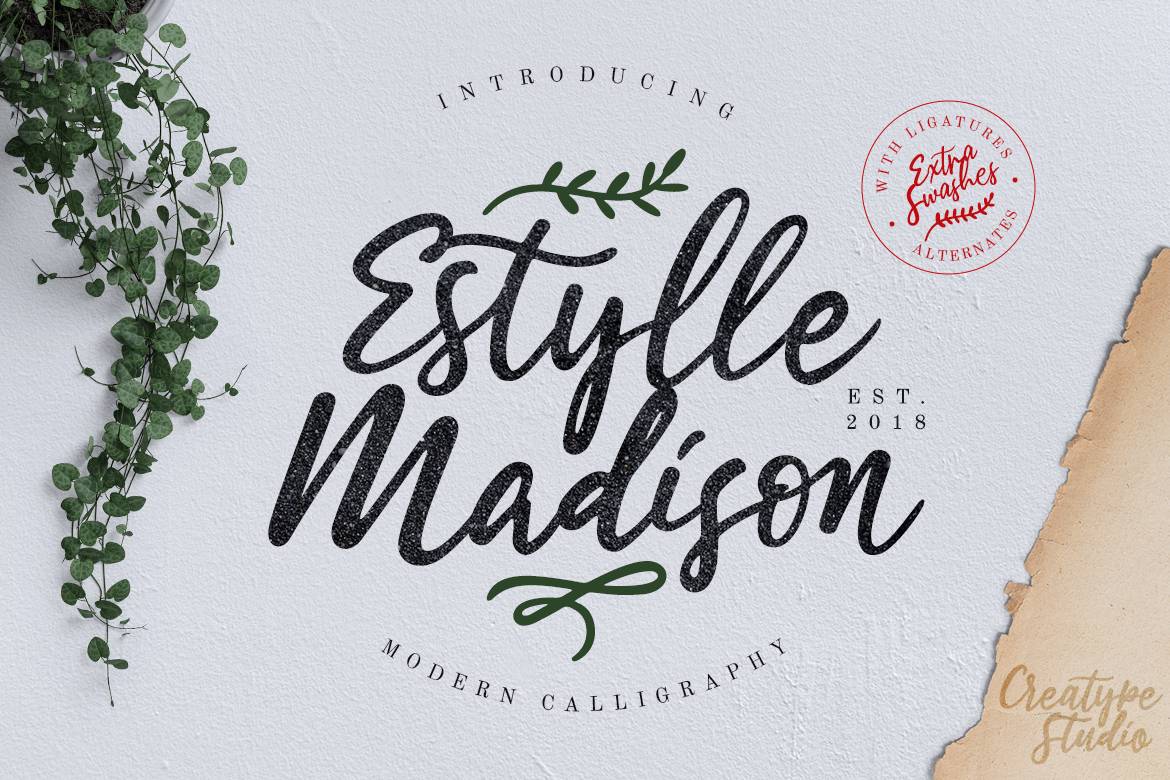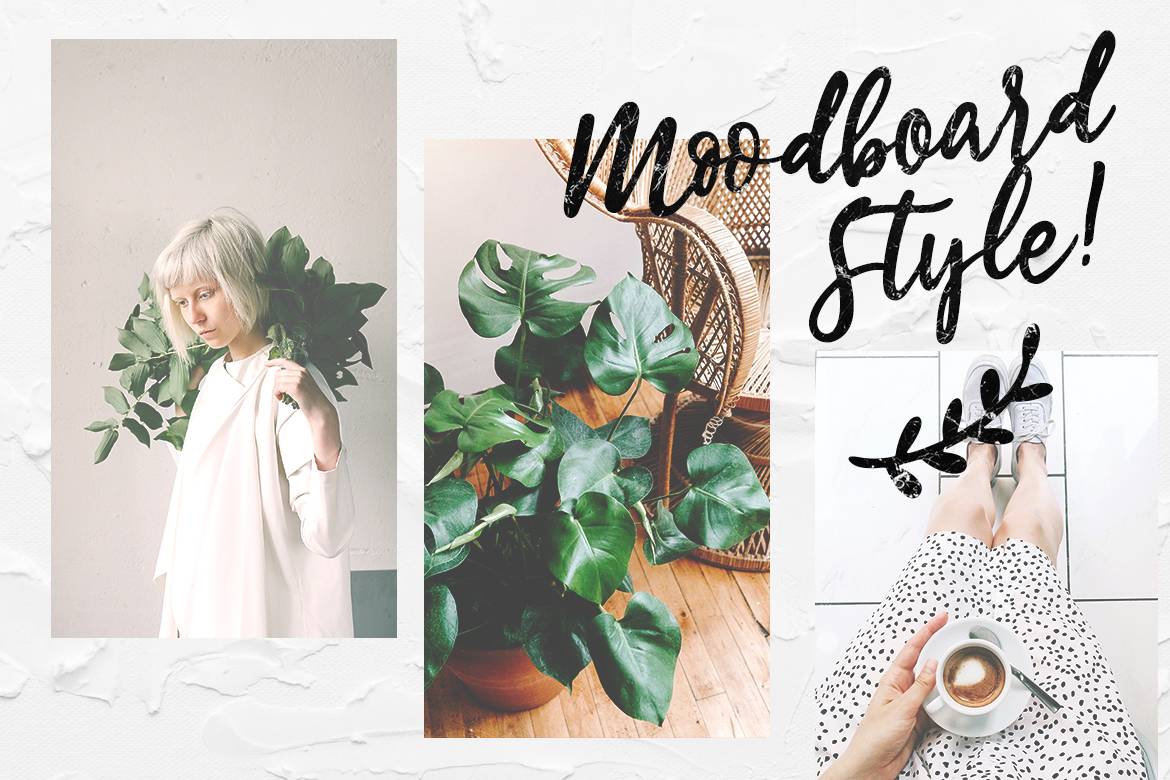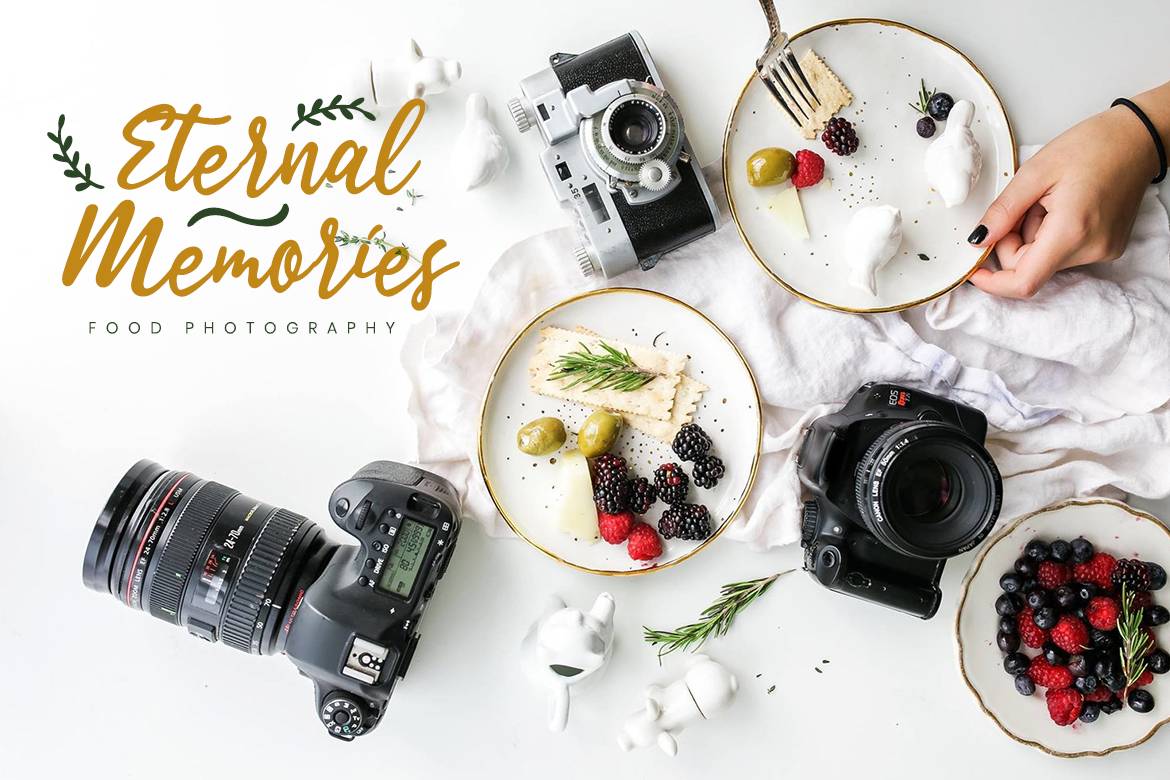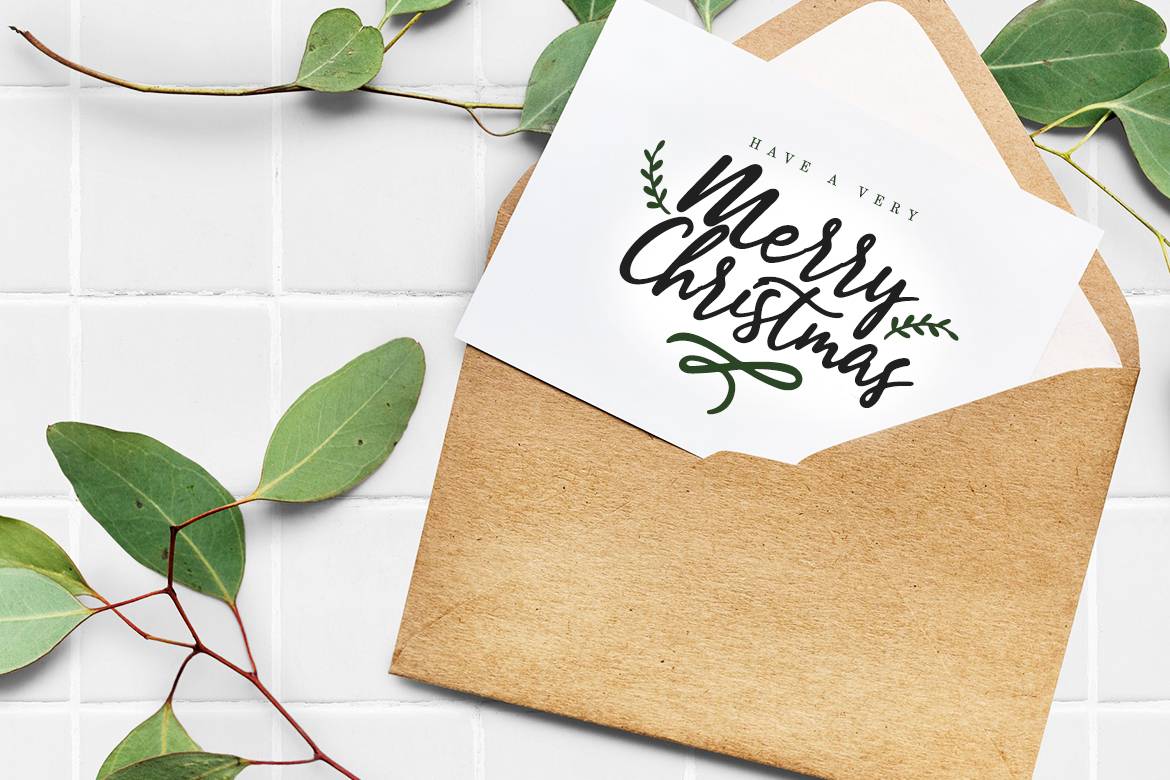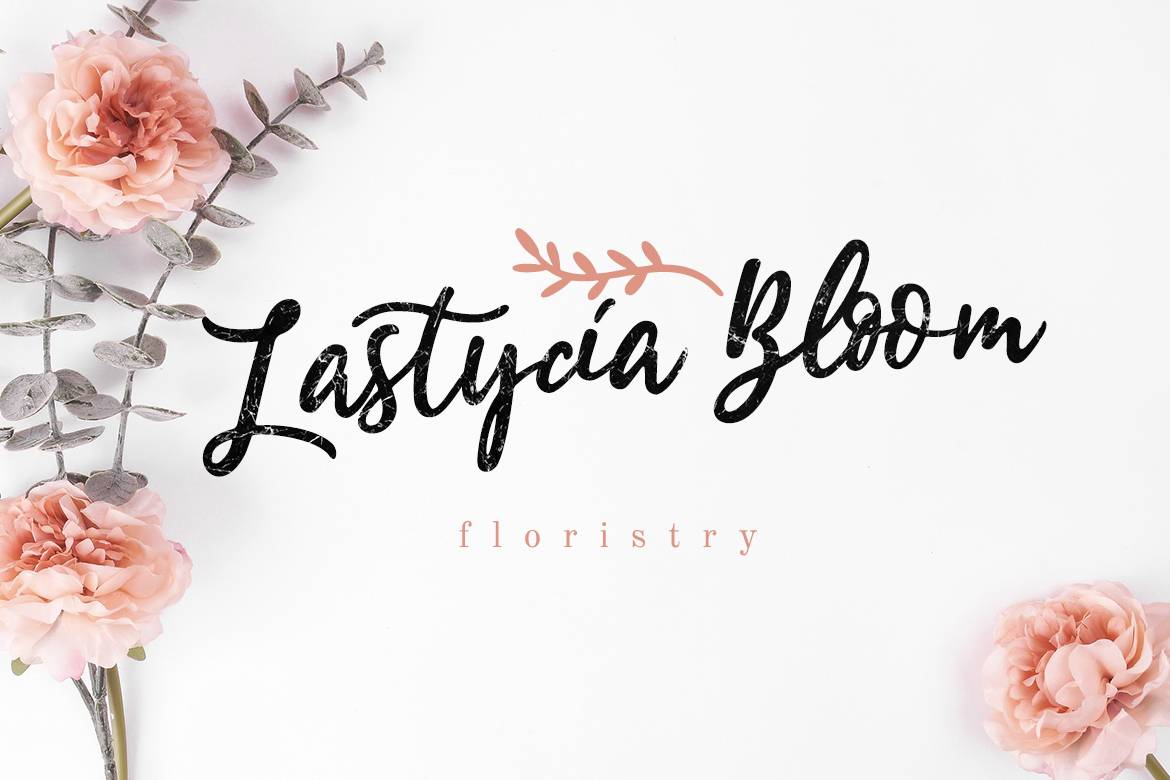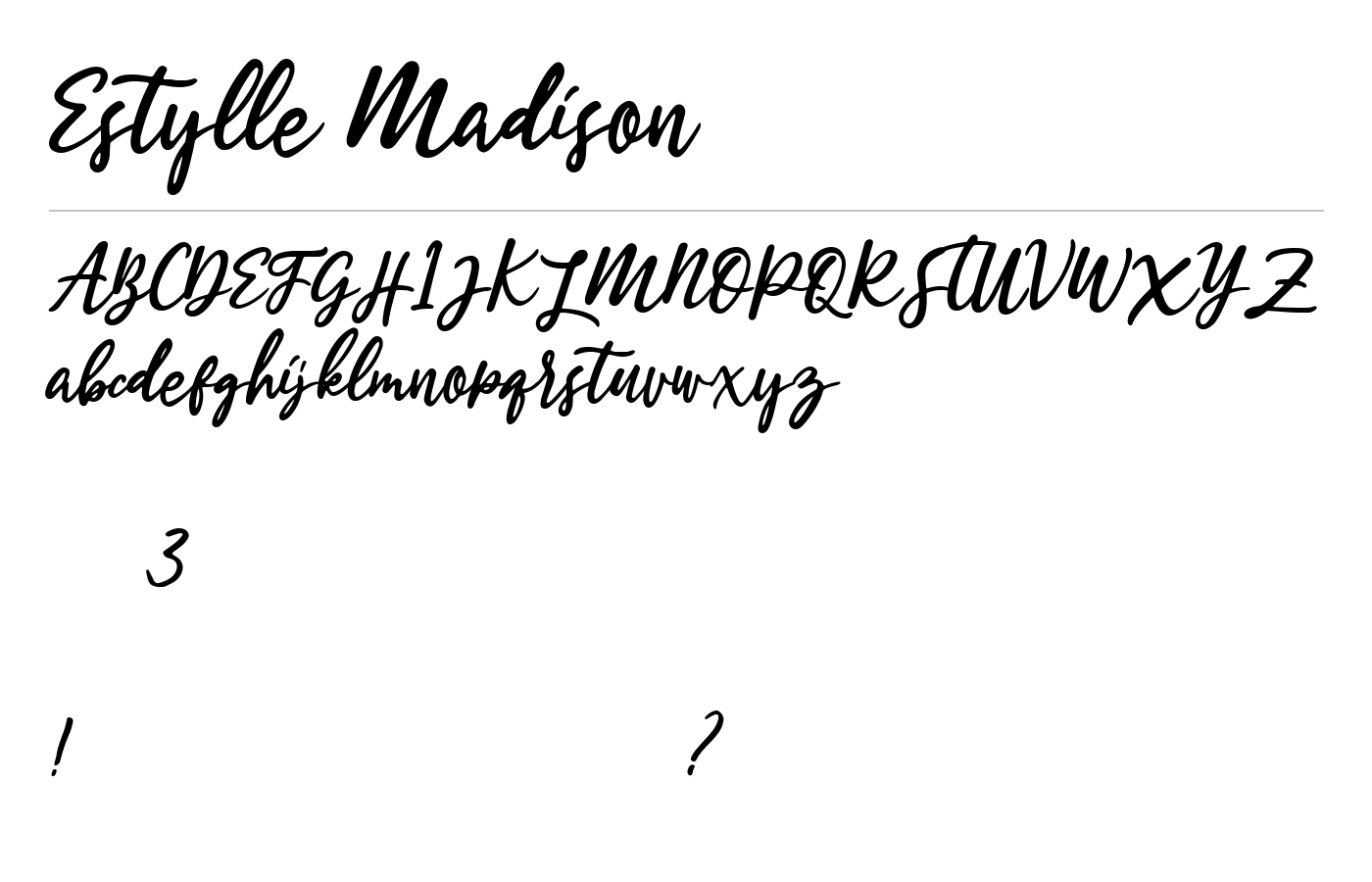
Estylle Madison is a lively and elegant script font with a natural handwritten feel, featuring smooth, flowing strokes and moderate contrast. Its playful yet refined character makes it ideal for branding, invitations, and creative projects that seek a personal and stylish touch. This font works beautifully for logos, headlines, and any design needing a warm, approachable, and chic aesthetic.
Estylle Madison Font
About Estylle Madison Font